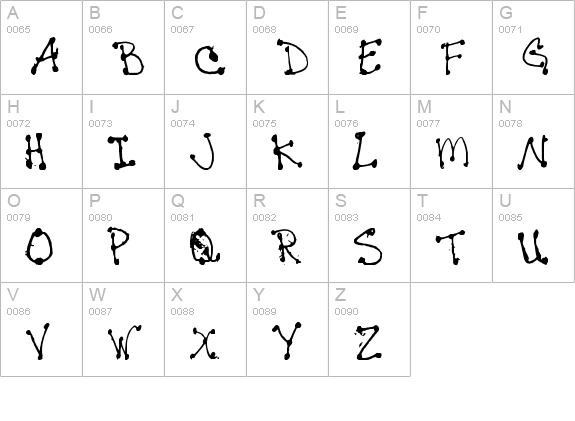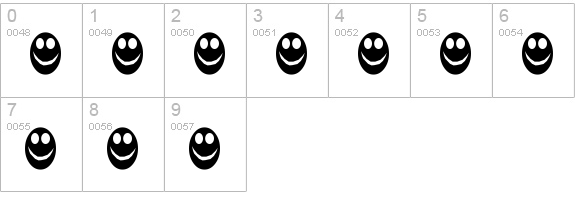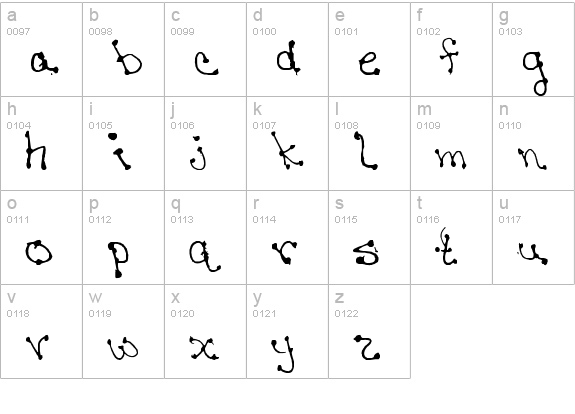
Janine's Writing Font Details
Janine's Writing font is a stunning and elegant typeface that captures the essence of sophisticated handwriting. With its smooth and flowing strokes, this font exudes a sense of grace and femininity, making it perfect for projects that require a touch of elegance. The beauty of Janine's Writing font lies in its versatility. Whether you are designing wedding invitations, crafting a heartfelt letter, or creating a stunning logo, this font will effortlessly elevate your work to new heights. Its delicate curves and subtle details add a touch of refinement, while its legibility ensures that your message is conveyed with clarity. What sets Janine's Writing font apart is that it is freely available to download at FontsMarket.com. This means that you can access this beautiful font without any cost, making it an excellent choice for both personal and commercial projects. Whether you are a professional designer or a hobbyist, this font offers a valuable addition to your font library. Designed with precision and attention to detail, Janine's Writing font is optimized for both print and digital media. Its high-quality outlines ensure that your text remains sharp and clear, regardless of the size or medium. From small captions to large headlines, this font adapts effortlessly to any design. With its timeless appeal and exquisite craftsmanship, Janine's Writing font is sure to captivate and inspire. Embrace the beauty of handwritten elegance and bring your designs to life with this remarkable typeface. Download Janine's Writing font for free at FontsMarket.com and unlock a world of creative possibilities.